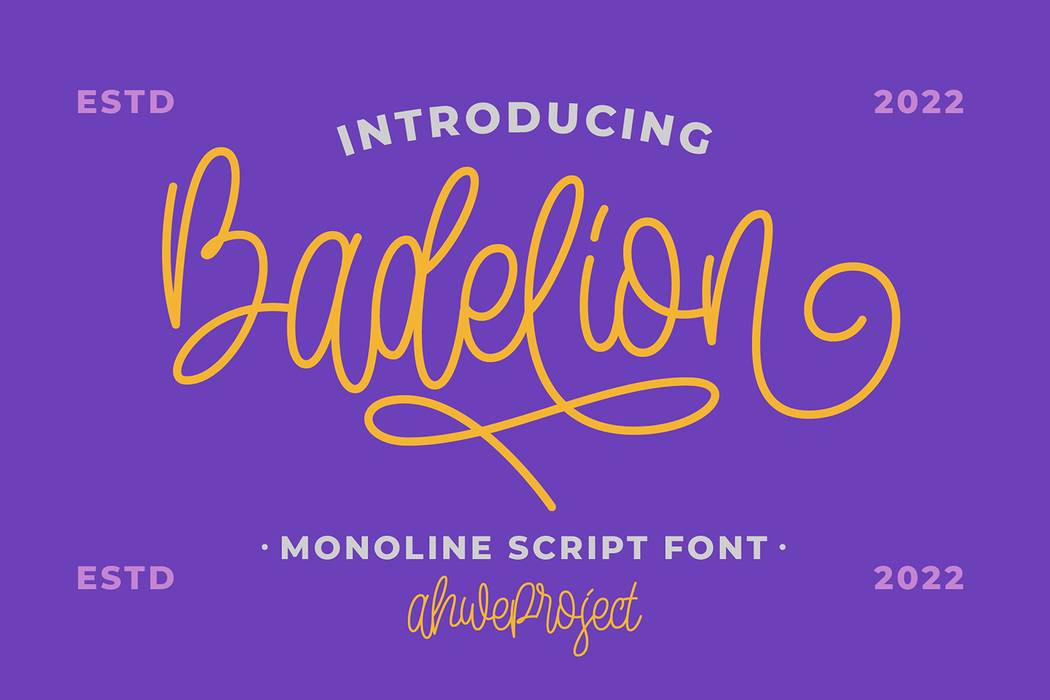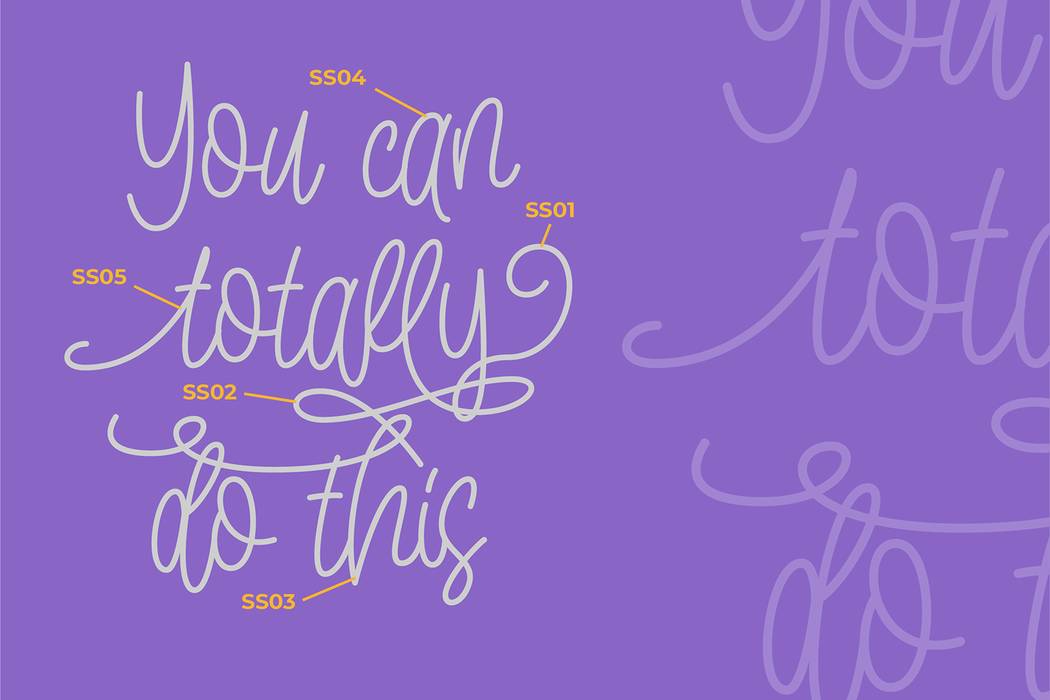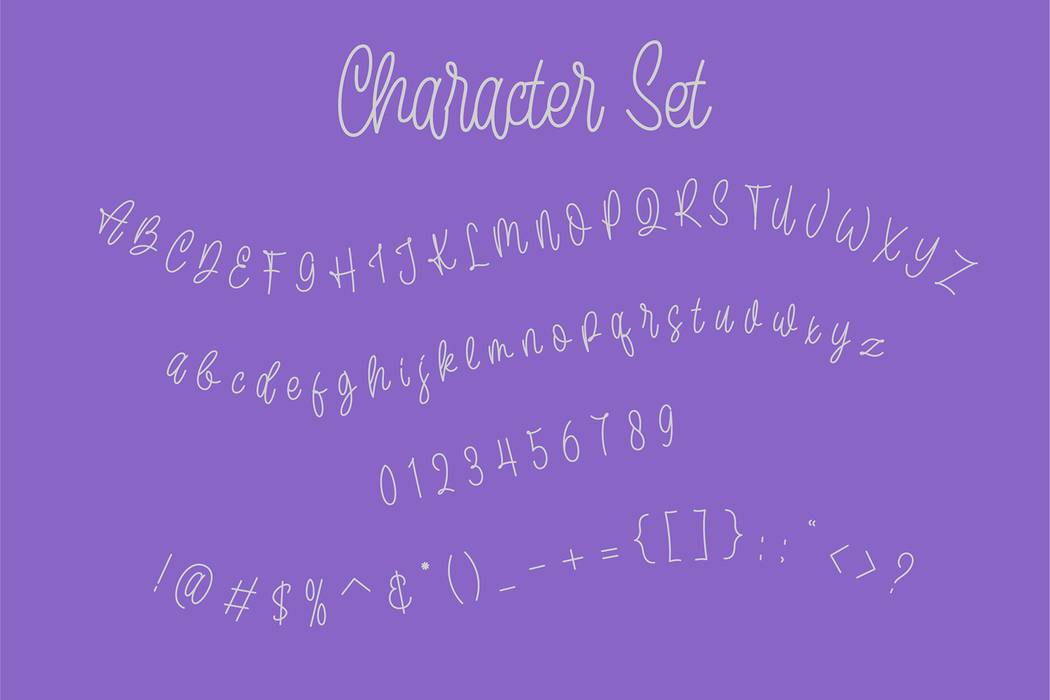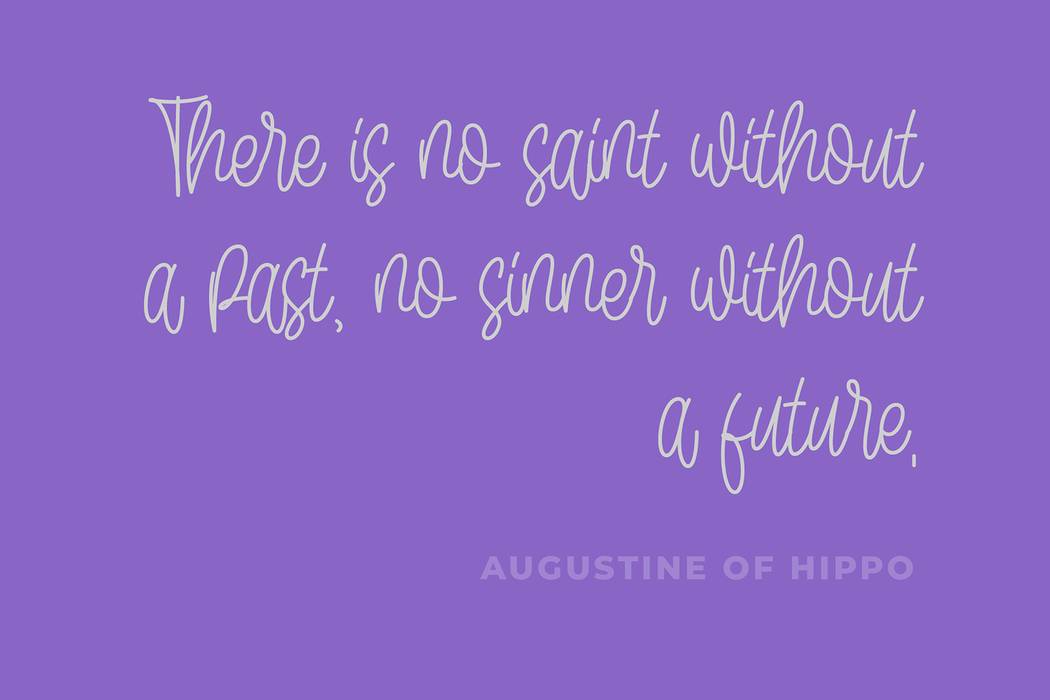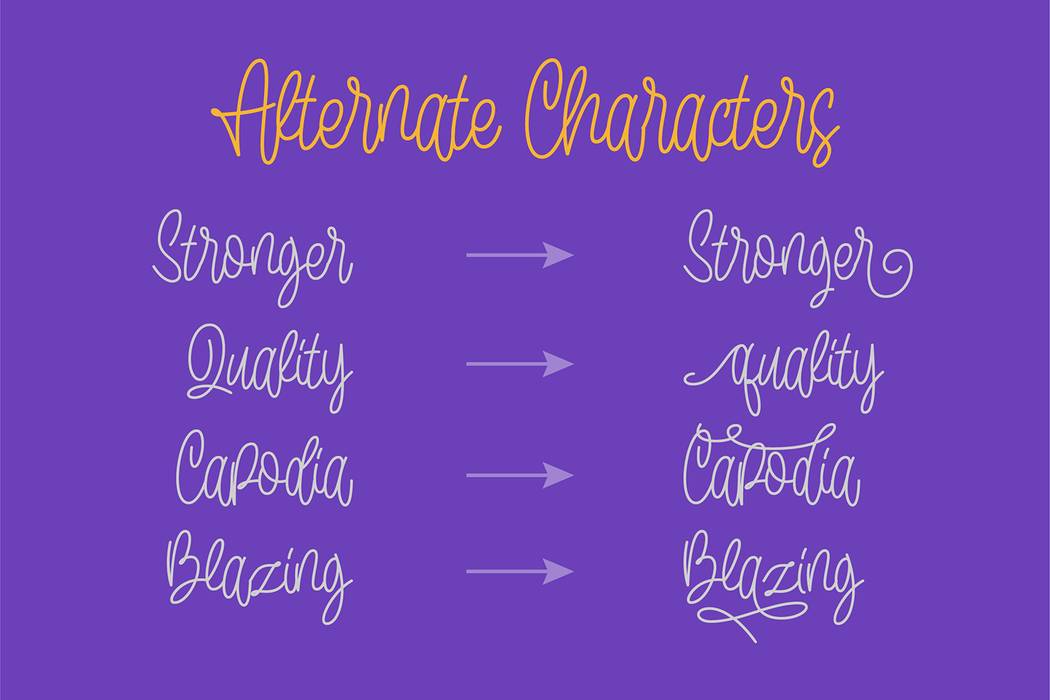
Badelion is a whimsical handwritten script font with a tall, narrow structure and delicate, flowing lines that give it a light and airy feel. Its playful loops and slightly irregular letterforms add a personal, casual charm, making it perfect for creative projects, invitations, branding, and any design that benefits from a friendly, approachable style. This font works best in headlines, logos, and decorative text where a unique, expressive touch is desired.
Badelion Font